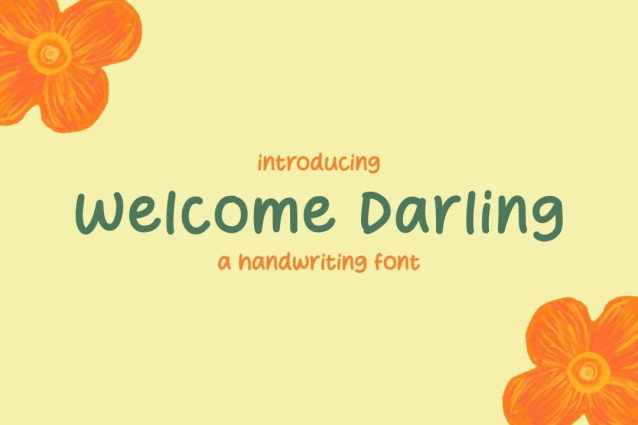
Welcome Darling Font
Welcome Darling Font is a simple and friendly handwritten font. Its natural and unique style makes it incredibly fitting to a large pool of designs. The only limit is your imagination!